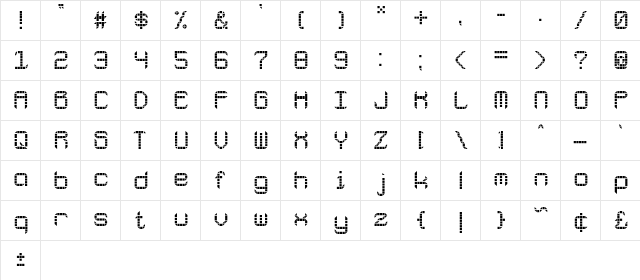
Galactic Spaceport Regular
| Foundry | designg33k |
| Designer | designg33k |
Design Context for Galactic Spaceport Typeface
Galactic Spaceport is a composed and adaptable typeface that performs quietly and consistently across a wide range of design contexts.